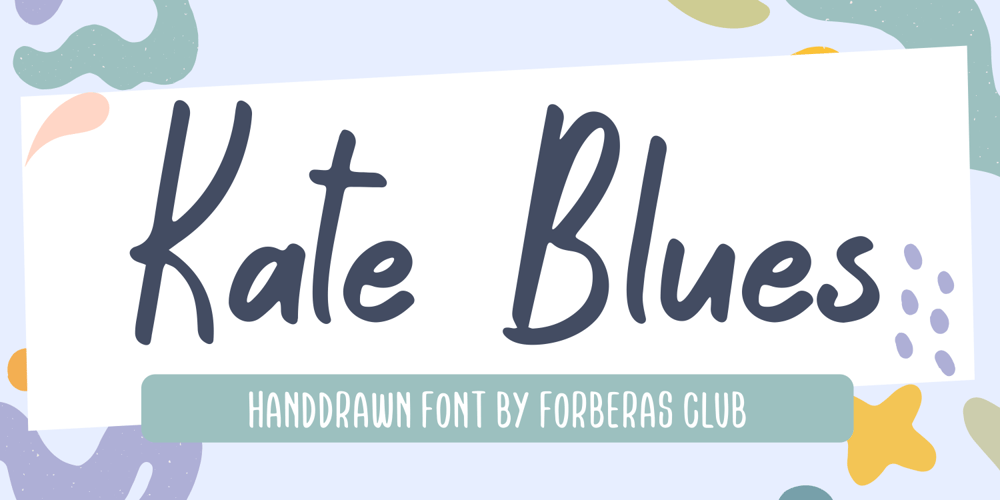
Kate Blues
Kate Blues font
Kate Blues Font Family was designed by ANGGI HERMAWAN and published by Forberas Club. Kate Blues contains 1 styles and family package options. Kate Blues is handwritten font. Recommended to use for children theme, funny theme, comics, cartoon, simple write, poster and display.